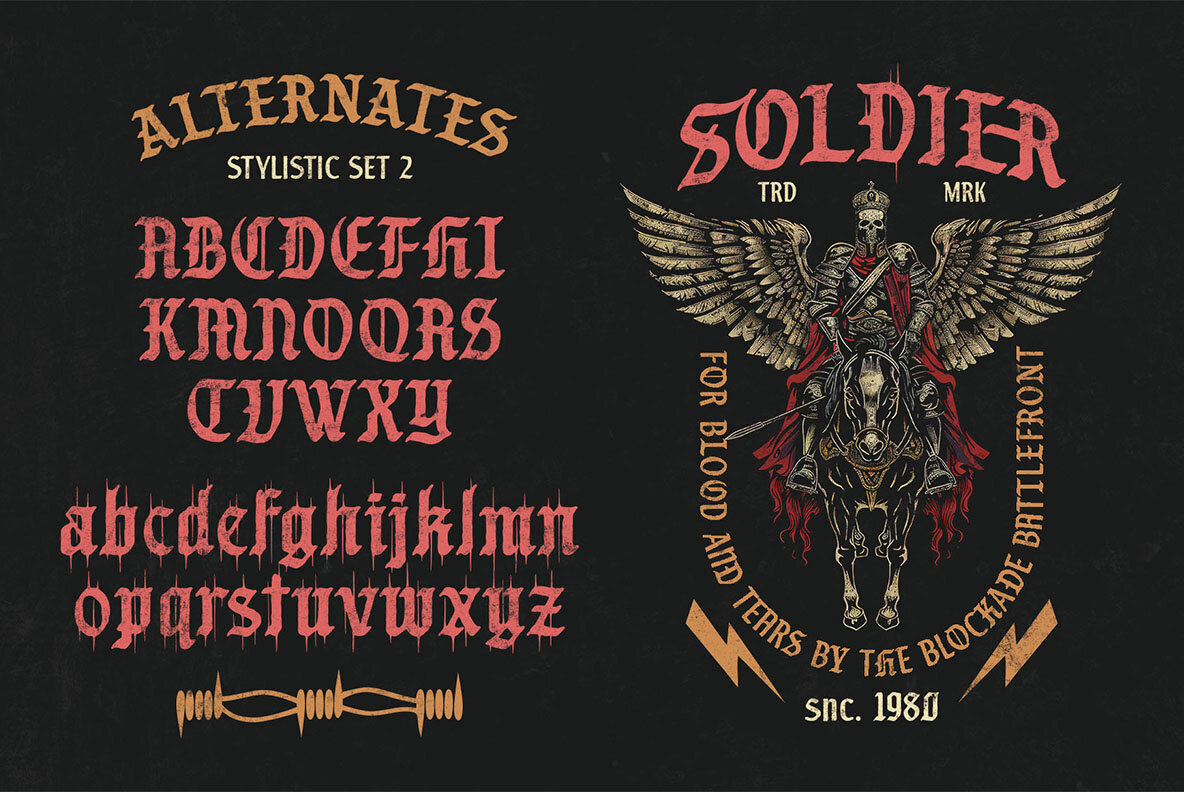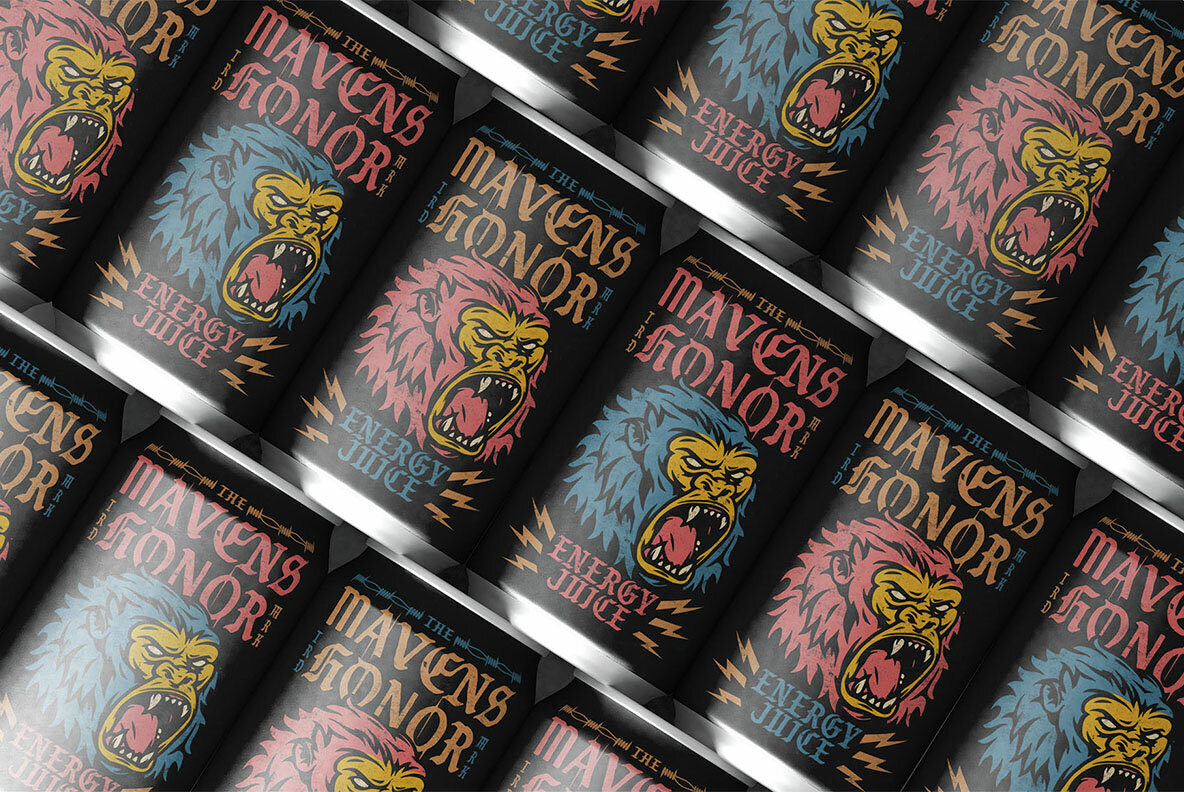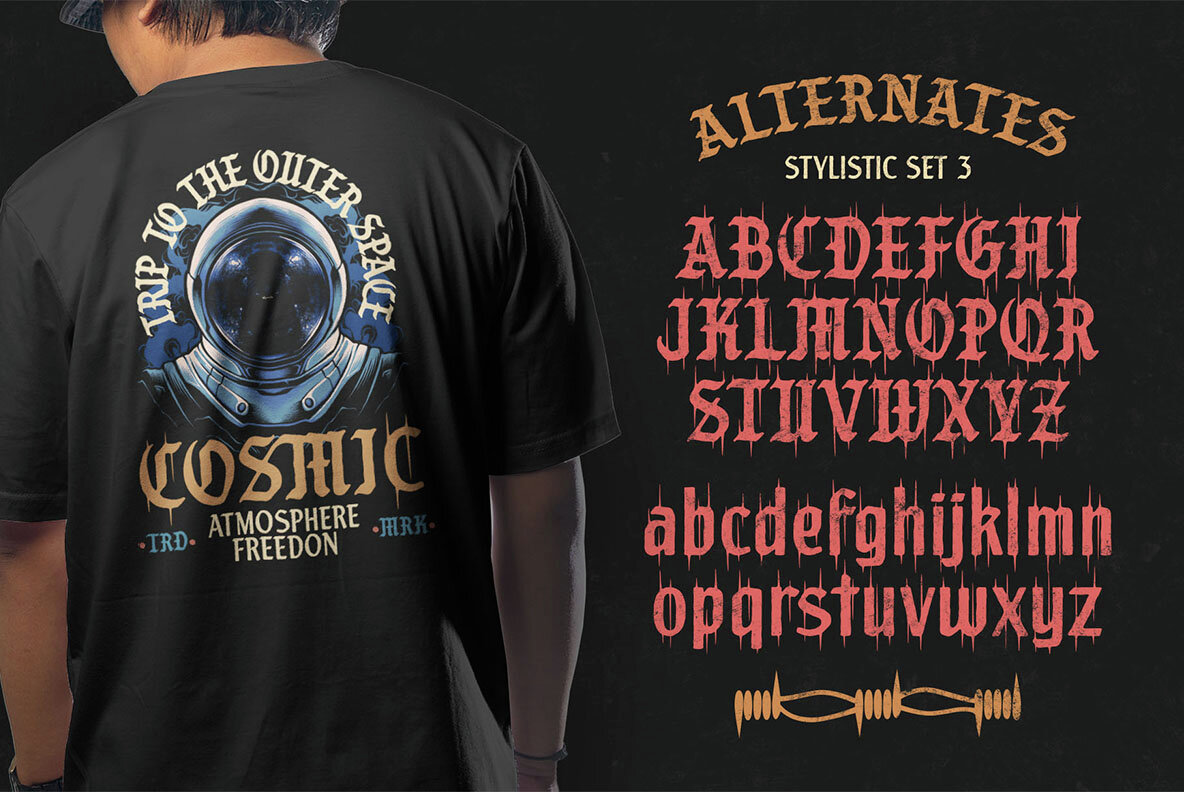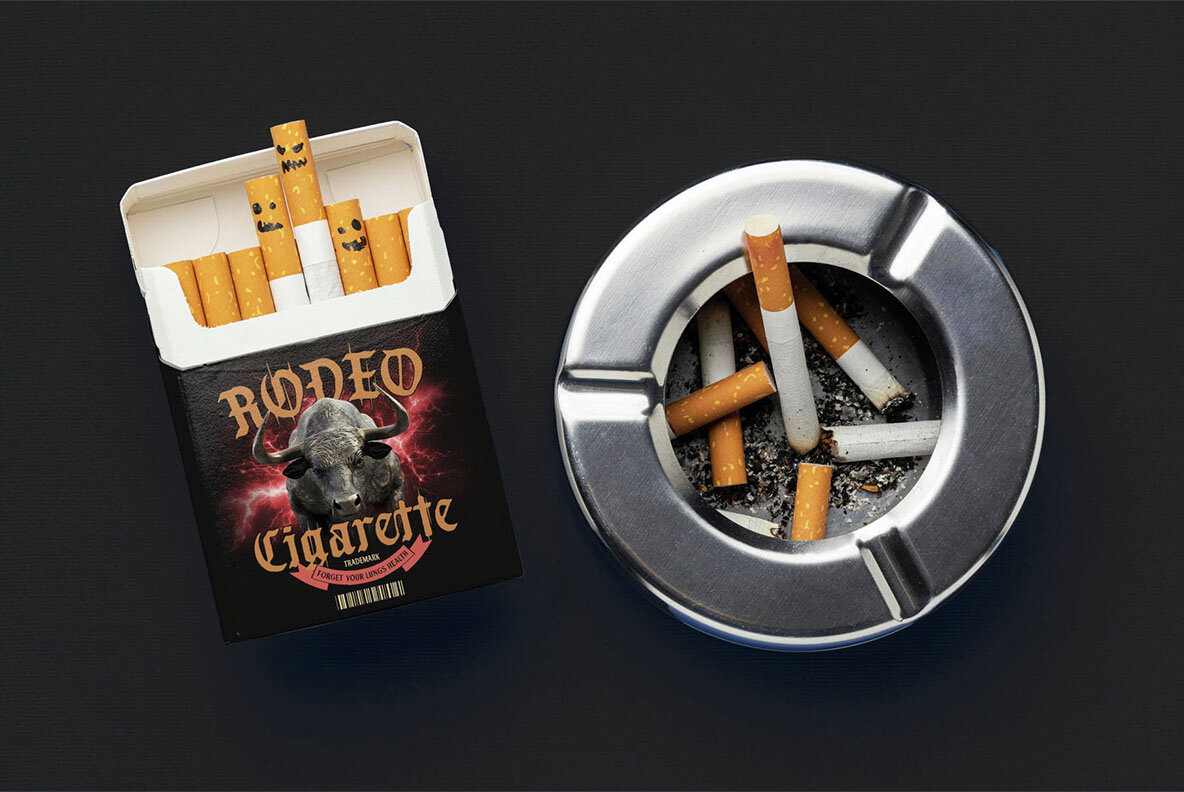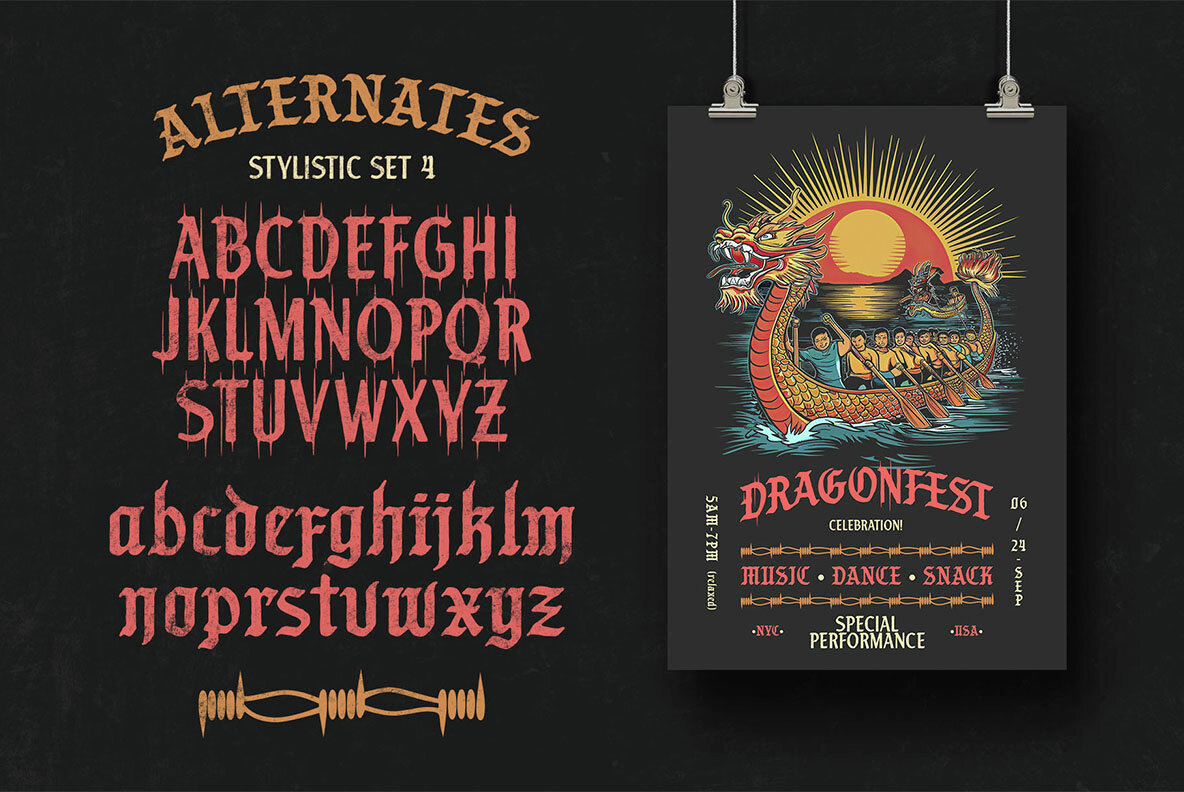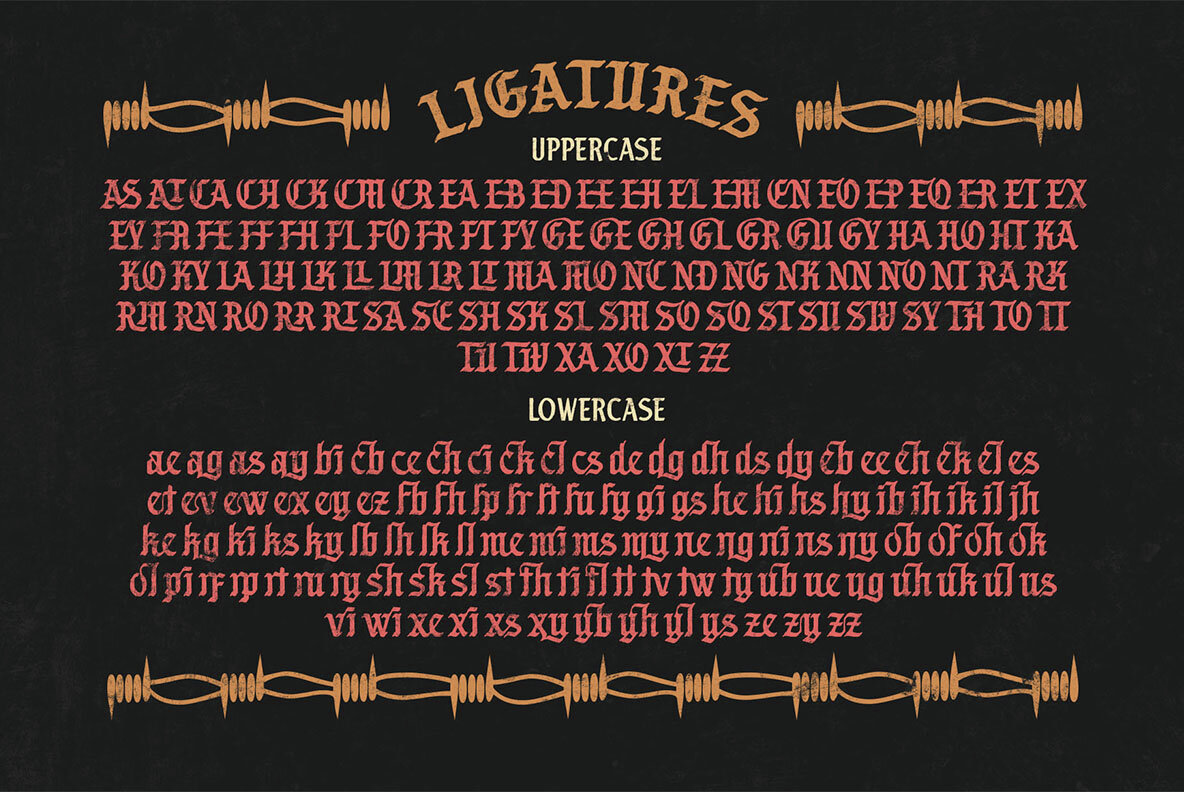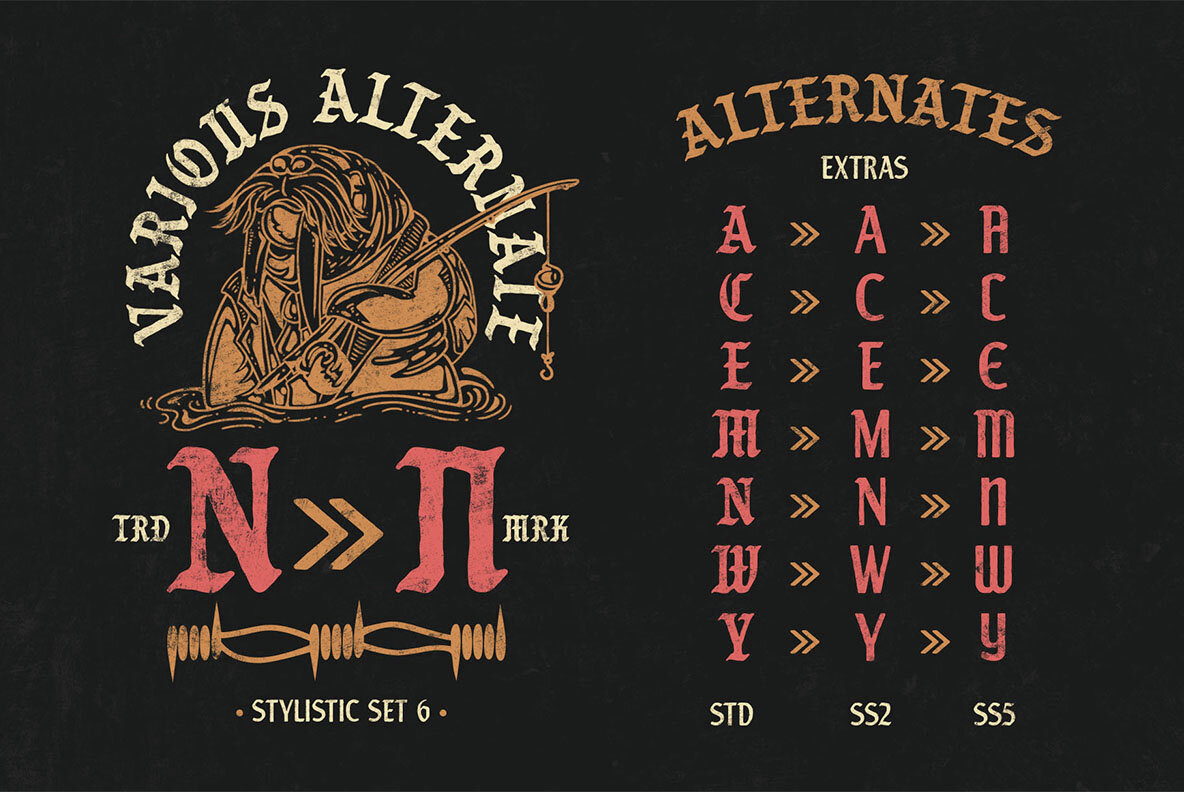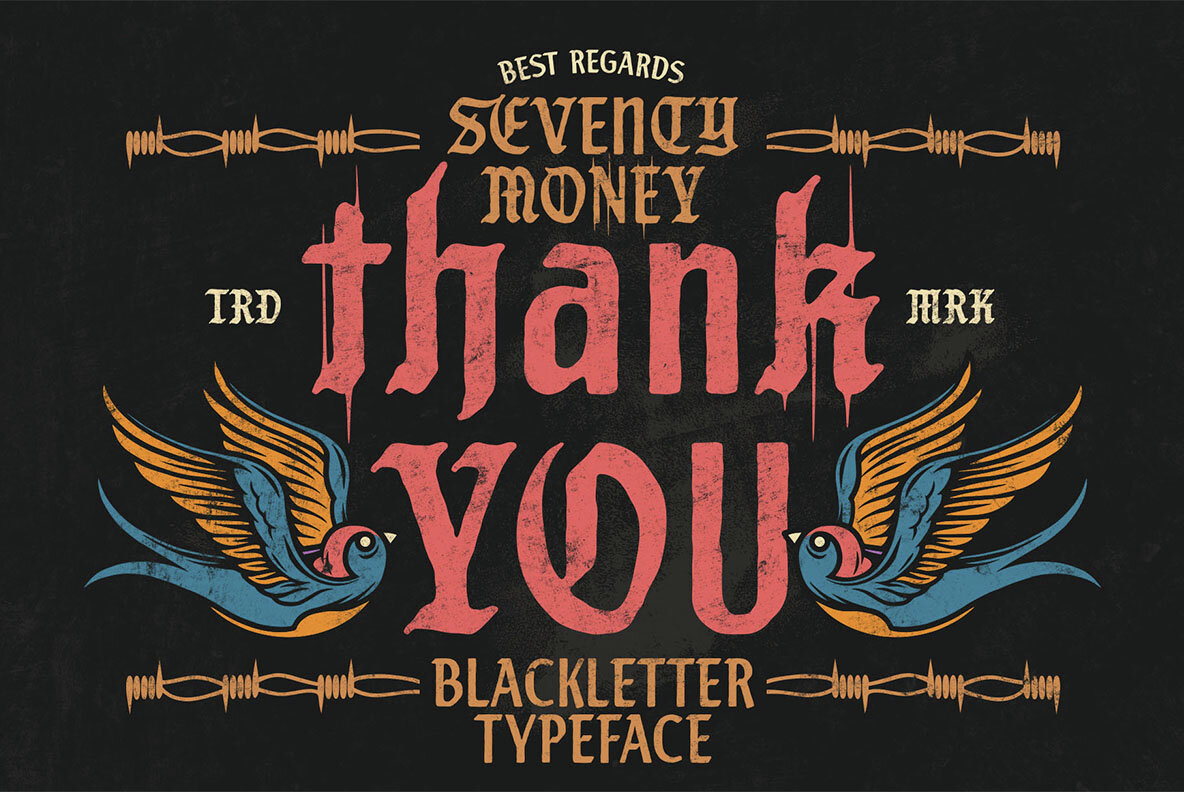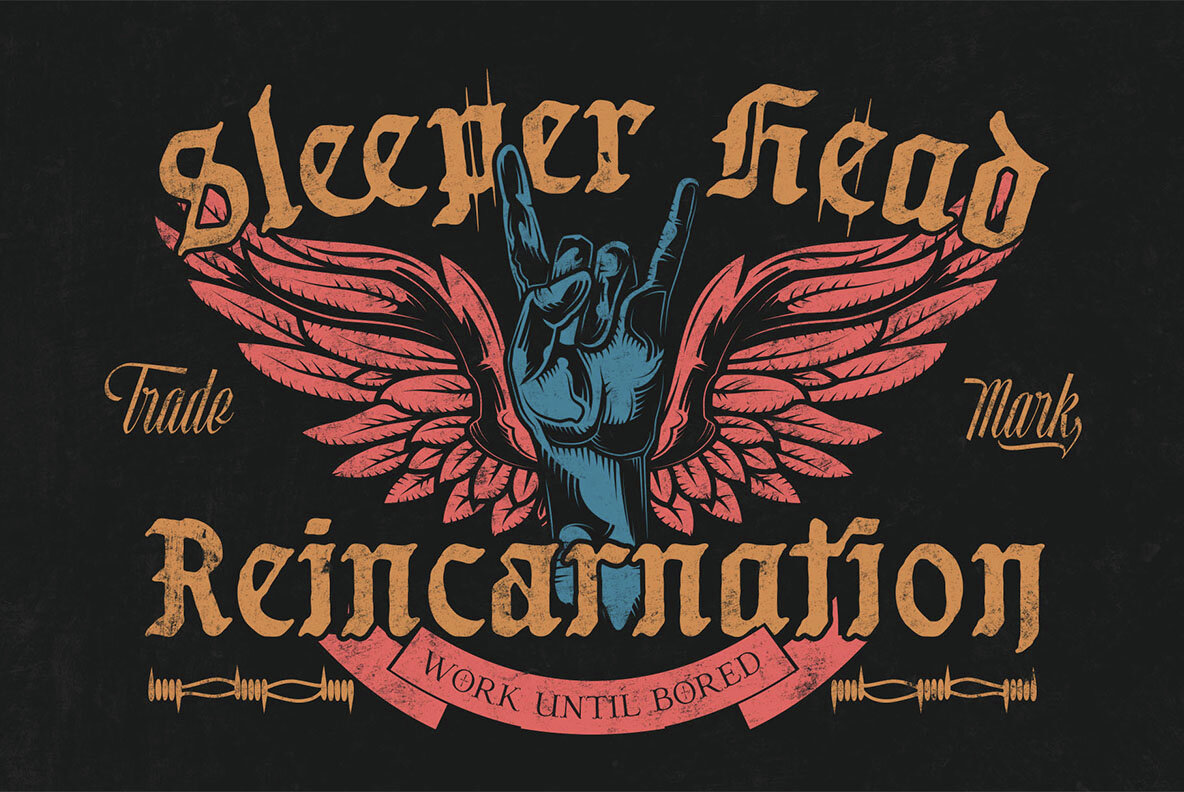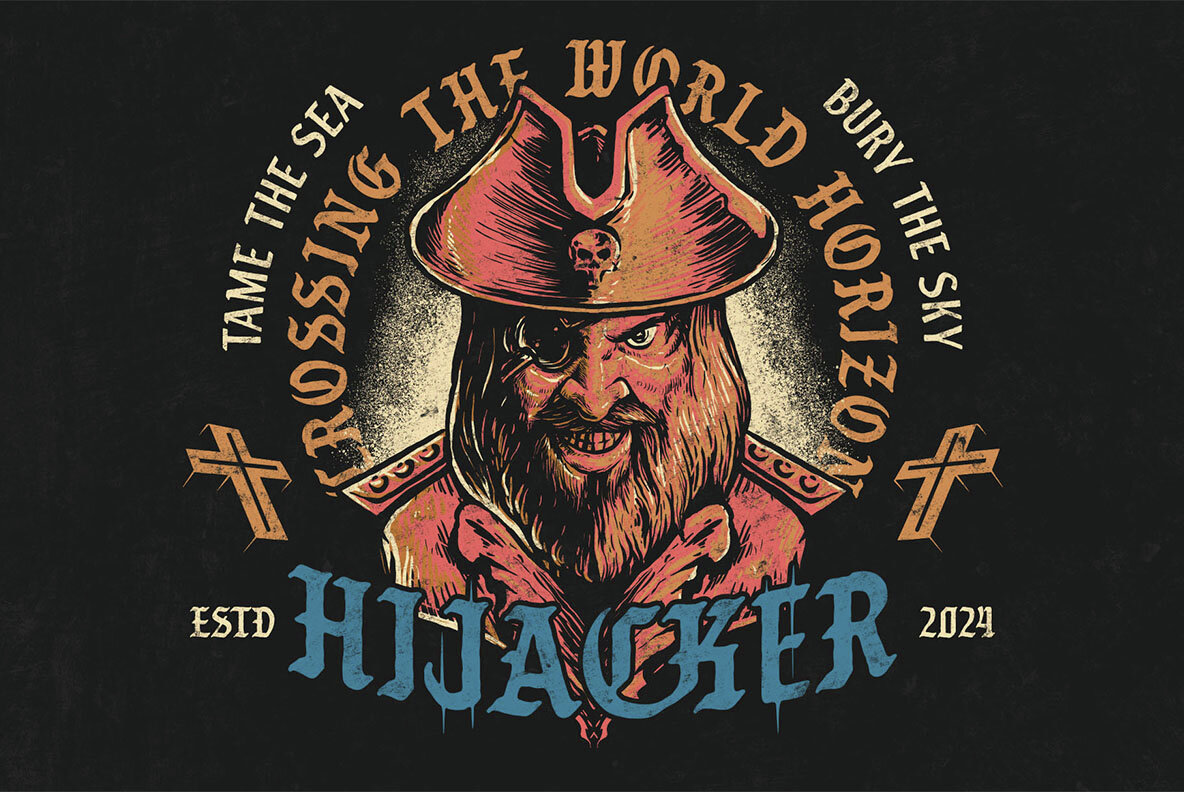
The Seventy Money Typeface is a meticulously crafted blackletter font with a rough, vintage edge, designed for projects that demand an impactful, antique feel. This font stands out with its distressed and weathered texture, giving each character the appearance of having been aged through time, as if printed from worn-out woodblocks or metal type. Its intricate design captures the essence of medieval Gothic lettering, but with a contemporary, gritty twist. Key Features: Design Aesthetic: With its bold, angular forms and rough, hand-hewn texture, Seventy Money evokes the feeling of centuries-old manuscripts and signage, perfect for designs that require a sense of history, rebellion, or mystique. The vintage blackletter style is ideal for projects like: Whether you're working on a vintage-themed event, a medieval fantasy project, or simply want to infuse your design with a bold, gothic personality, Seventy Money Typeface offers the versatility and detail to make your text stand out.